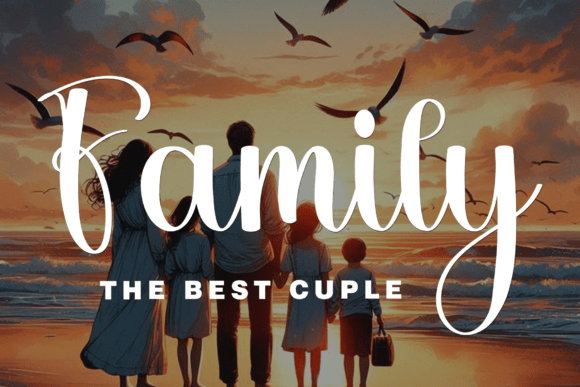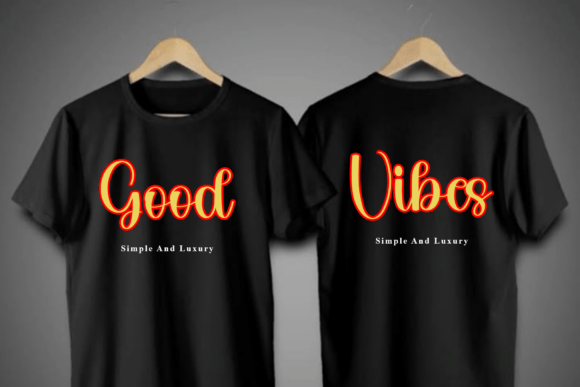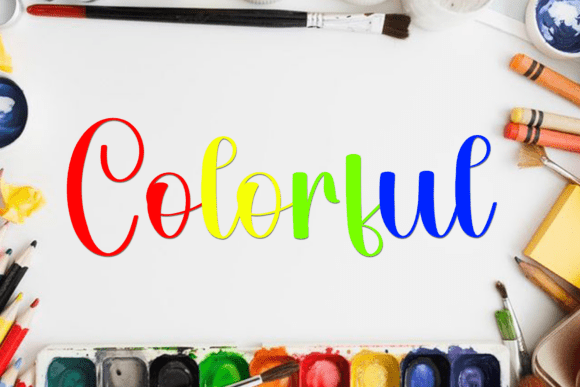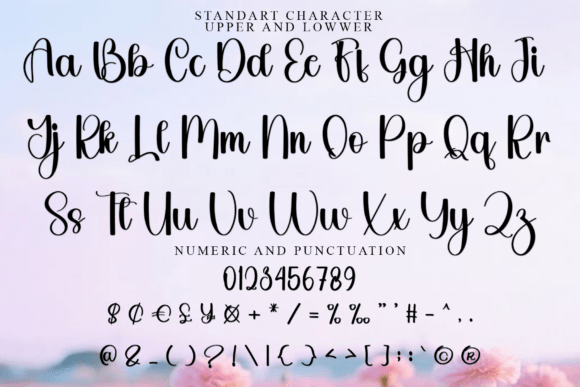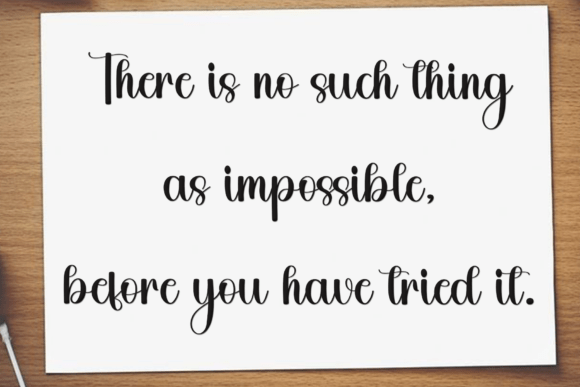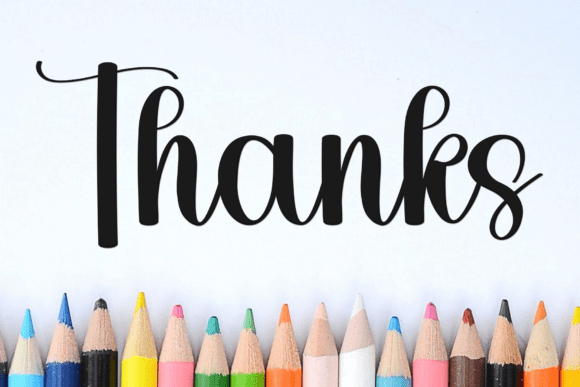
Discover the Magic of Ballpoint Font
Have you ever sat down with a blank sheet of paper, a pencil, and a spark of creativity, only to find that the perfect idea refuses to take shape? You’re not alone. As designers and artists, we’ve all been there. But what if I told you there’s a secret ingredient that can elevate your designs from bland to grand? Enter the enchanting Ballpoint Font, a beautiful and eye-catching typeface that’s about to revolutionize your creative workflow.
With its soft, unique touch and distinctive strokes, the Ballpoint Font is perfect for designers who crave a little extra magic in their projects. Whether you’re working on a design project, crafting a special gift, or simply looking to add a personal touch to your social media posts, this versatile font is sure to impress. Its compatibility with various applications, including Windows and open-source platforms, makes it a valuable addition to any designer’s toolkit.
Key Features of Ballpoint Font
- Unique Characteristics: The font’s unique ballpoint pen-inspired design features rounded edges and subtle texture, giving it a distinctive and modern look.
- Kerning and Ligatures: The font includes carefully crafted kerning and ligature pairs, ensuring smooth and even spacing between characters.
Ballpoint Font Review
As a designer, I’ve had the chance to work with a wide range of fonts, and Ballpoint Font is definitely one that stands out. Here’s my honest review.
- Unique Style**: Ballpoint Font has a distinct, hand-written feel that adds a touch of personality to any design.
- Limited Font Weights**: While the font has a nice, unique feel, it’s limited to a few font weights, which can make it less versatile for complex designs.
- No Italic or Bold Styles**: Unfortunately, Ballpoint Font doesn’t have italic or bold styles, which can be a limitation for designs that require emphasis.
- Not Suitable for Body Text**: Due to its unique style, Ballpoint Font can be difficult to read in large blocks of text, making it better suited for headlines or titles.
Overall, Ballpoint Font is a great choice for designers looking to add a unique touch to their designs. While it has some limitations, its high-quality vectors and wide character set make it a valuable addition to any font collection.
Tips for Getting the Most Out of Ballpoint Font
For best results, use Ballpoint Font with bold or italic styles to add emphasis to your text. You can also experiment with different font sizes and colors to create visual interest.
Ballpoint Font is ideal for creating retro or vintage-inspired designs. It’s also great for use in headings or titles where a bold, eye-catching font is needed.